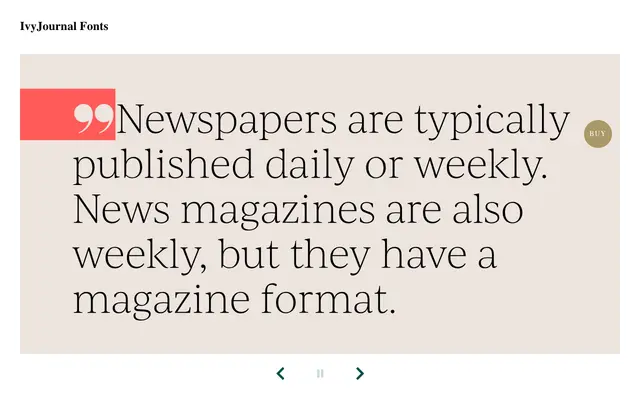
IvyJournal
A contemporary workhorse serif by Jan Maack, drawing on Bembo, Baskerville and Times New Roman for use in books, magazines and office contexts.
Designed by Jan Maack, IvyJournal began as part of the IvyStyle type system before developing into a standalone family. The design applies principles of Roman inscriptional capitals and classic metal types to produce a versatile text serif across five weights with matching italics. Its range and opentype feature set, including old-style numerals, discretionary ligatures and fractions, make it a practical alternative to the more heavily used text faces it references.
Draws on Roman inscriptional capitals and metal type traditions including Bembo, Baskerville and Times New Roman, placing it squarely in the transitional serif lineage adapted for contemporary text use.